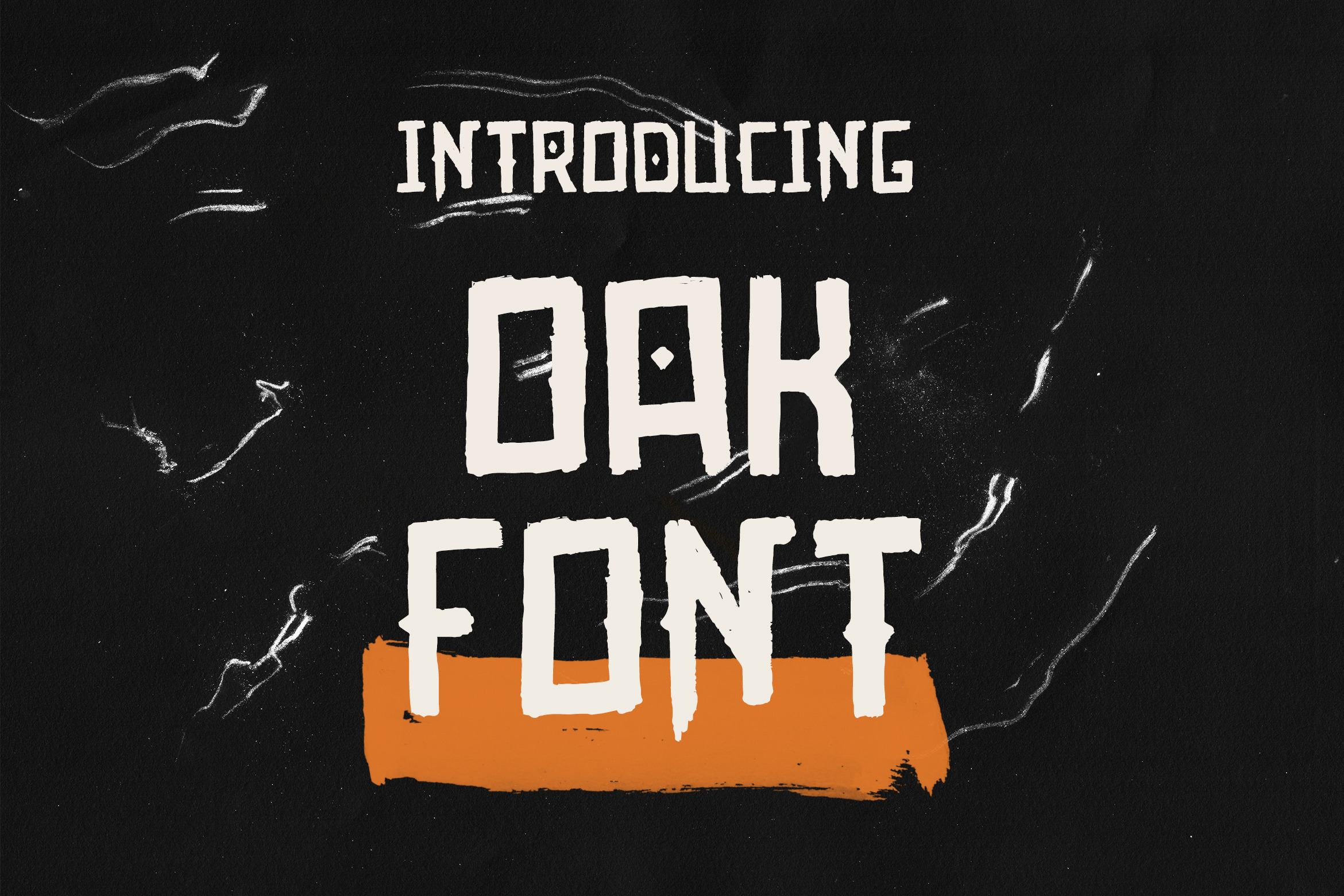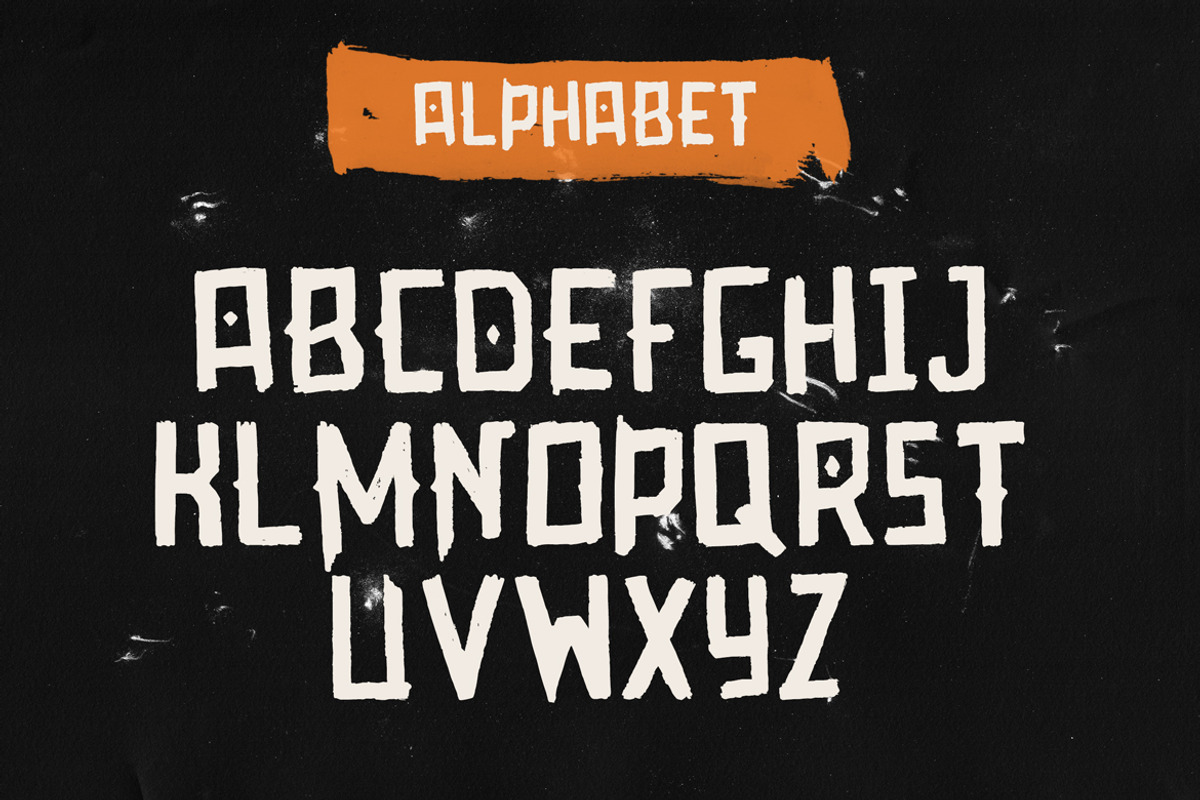
Oak font
Oak is a bold vintage display font. This font looks pretty brutal and powerful like the oak itself. Well suited for the design of advertising campaigns, posters for films and more.